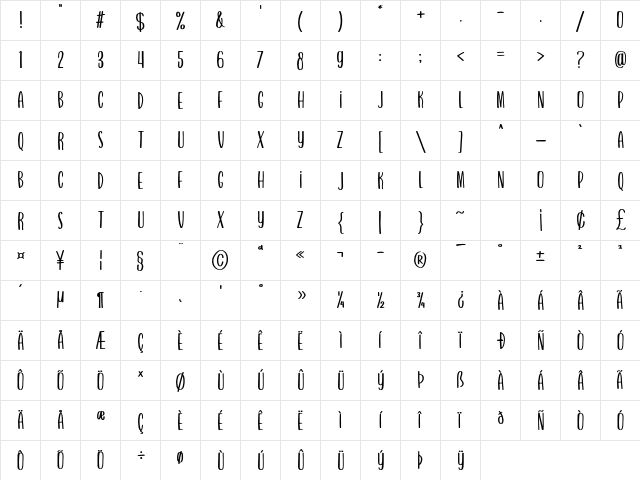
Brownie Sundae Regular
Design Context for Brownie Sundae Typeface
Brownie Sundae is a composed and adaptable typeface that performs quietly and consistently across a wide range of design contexts.